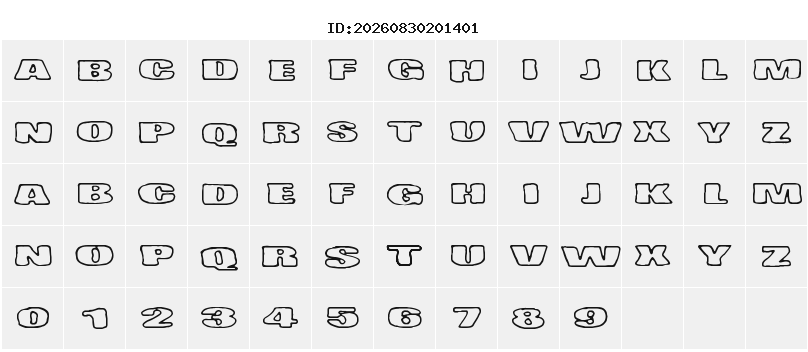
Tempo Minimo Bass Preview
• Font Name: Tempo Minimo Bass
• Designer: junkohanhero
About Tempo Minimo Bass.ttf
Tempo Minimo Bass.ttf is a modern, elegant sans-serif font designed for ultimate readability and visual harmony. Perfect for branding, headlines, web design, and print materials.